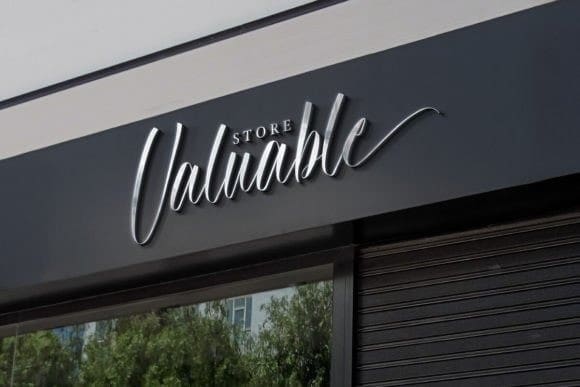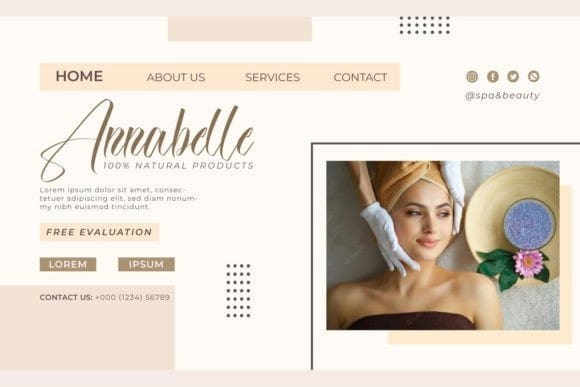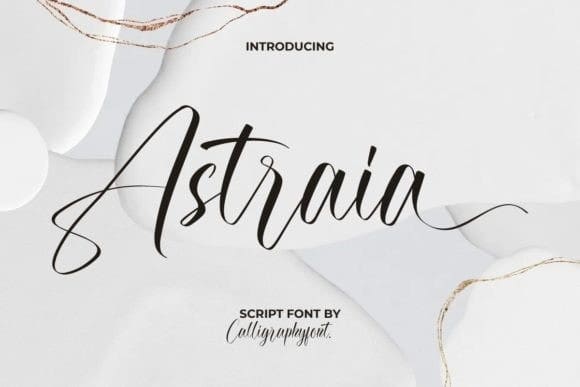
Astraia Font
Astraia Font is an elegant calligraphy script font with a modern look. It can enhance various creative projects, such as brand logos, brochures, business cards, catalogs, menu flyers, quotes, signage, stationery, websites, and other projects that require a touch of awesome scripting.